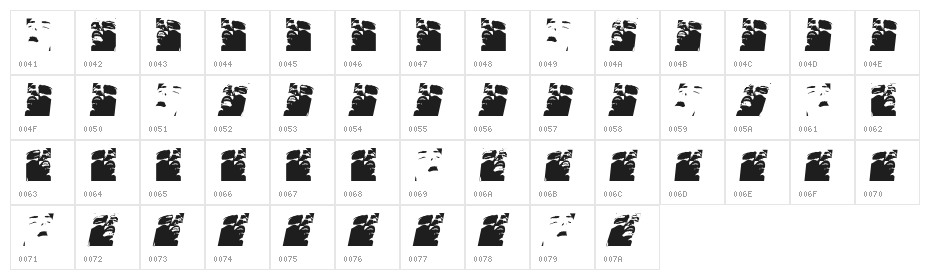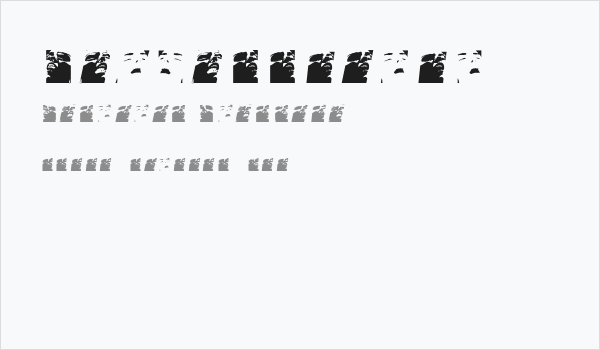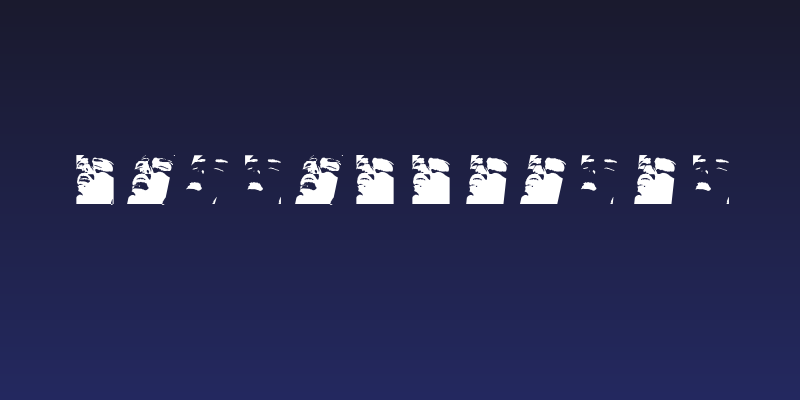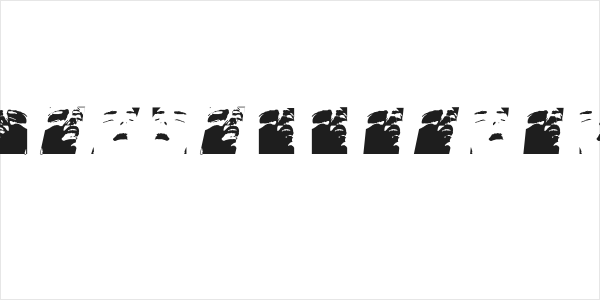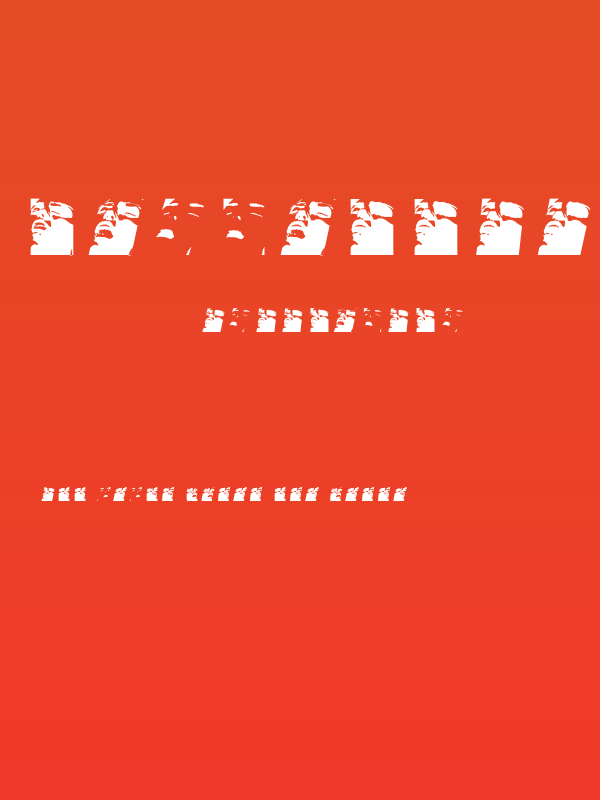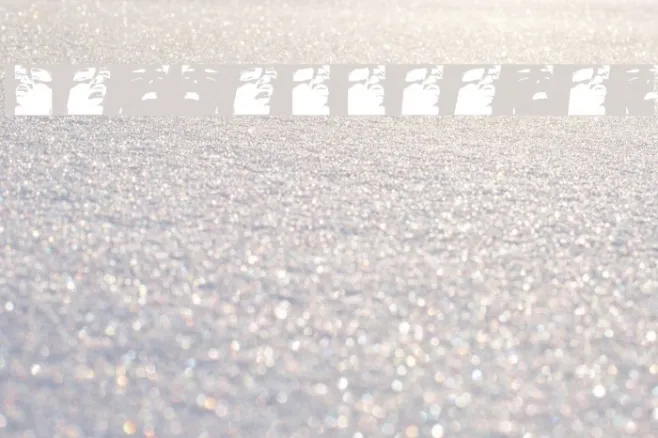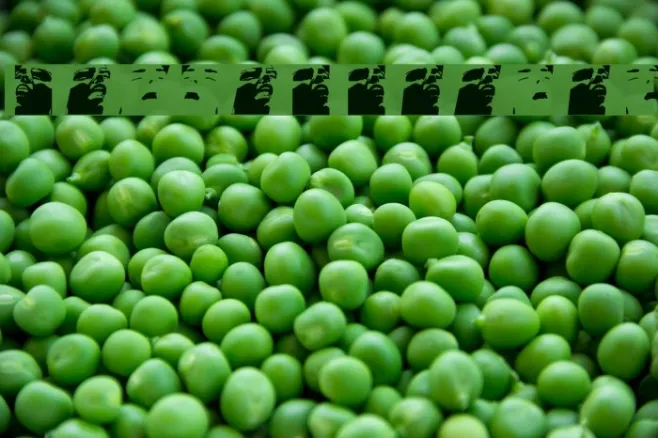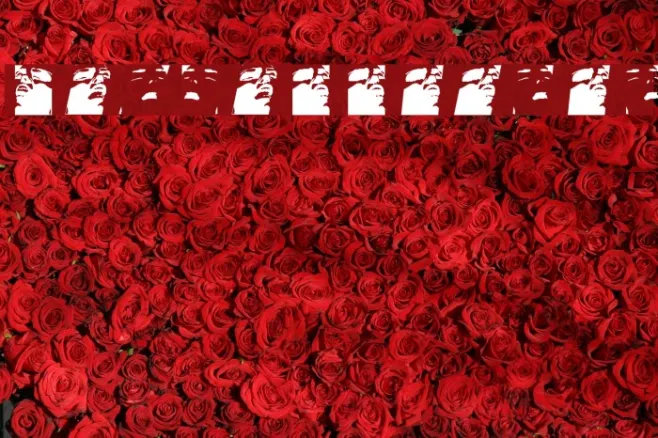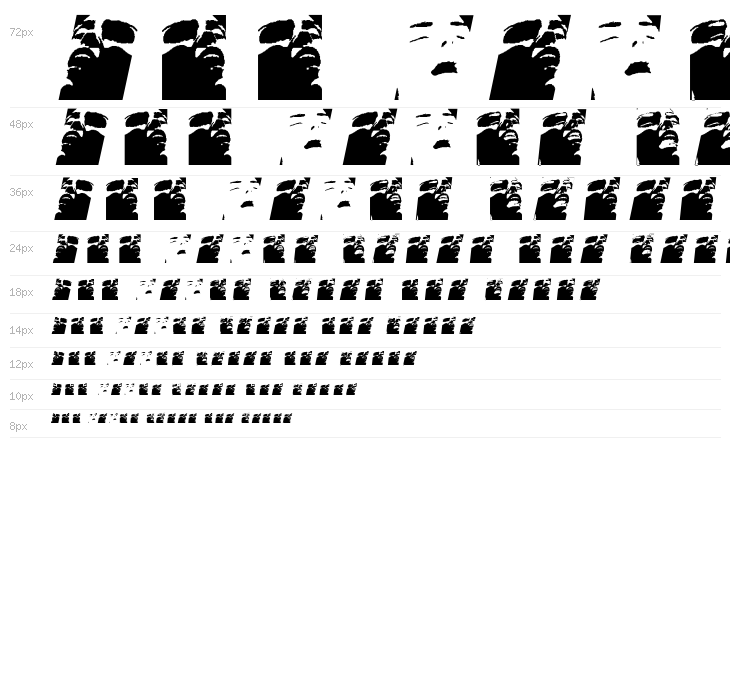
CryArgentina Font
CryArgentina Description
This is not a valid font. The image contains repeated graphic elements that resemble a stylized face or mask, rather than a set of typographic characters. The design is more akin to an artistic pattern or a series of icons, lacking the typical structure and variety of a complete font set. Each element is highly detailed and visually complex, suggesting a decorative or thematic purpose rather than functional typography.
| Overall Style | Artistic, Decorative |
| Use Case | Art projects, Decorative patterns |
| Proposed Projects | This design could be used for artistic projects, thematic decorations, or as a repeating pattern in graphic design. |